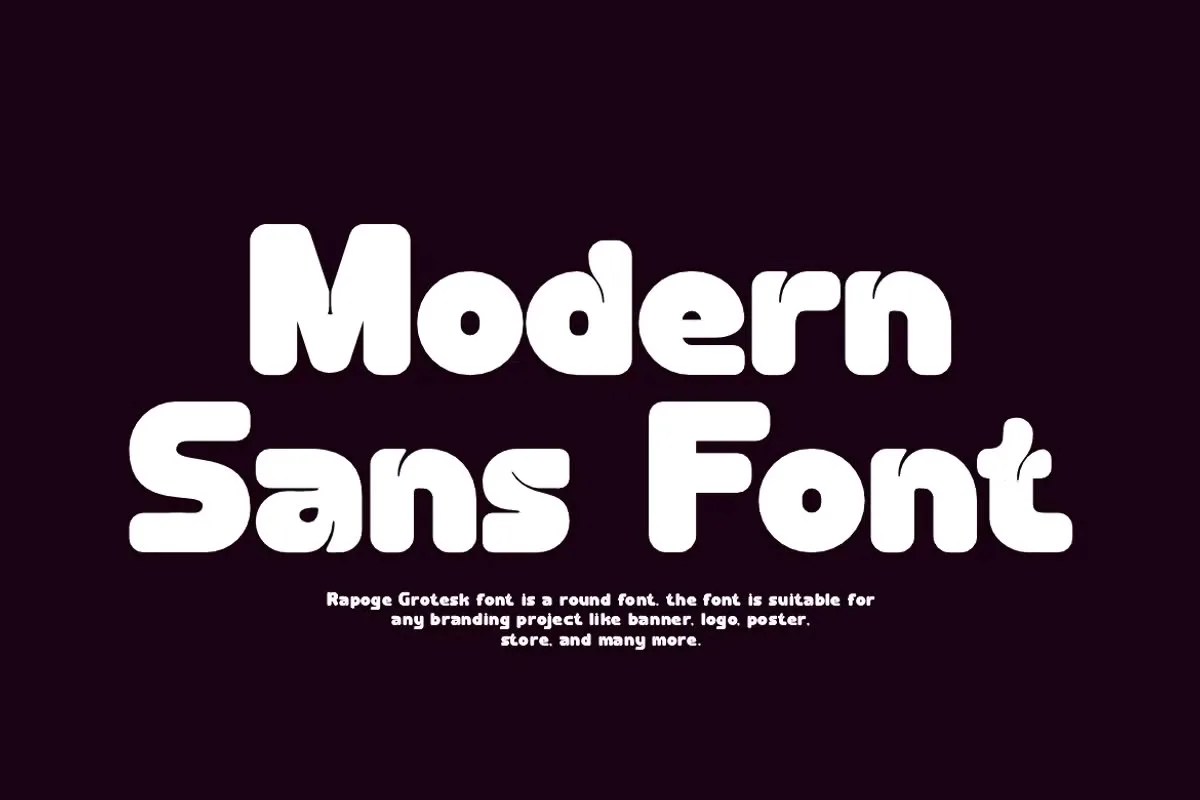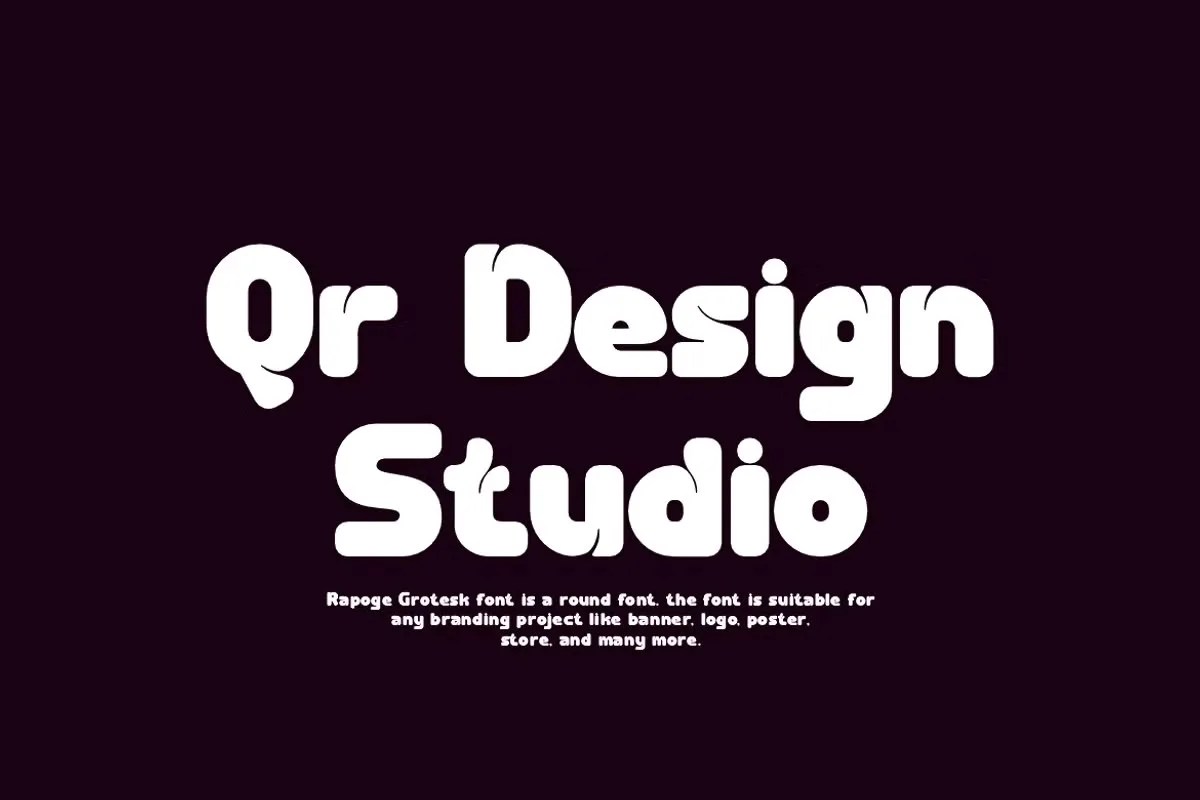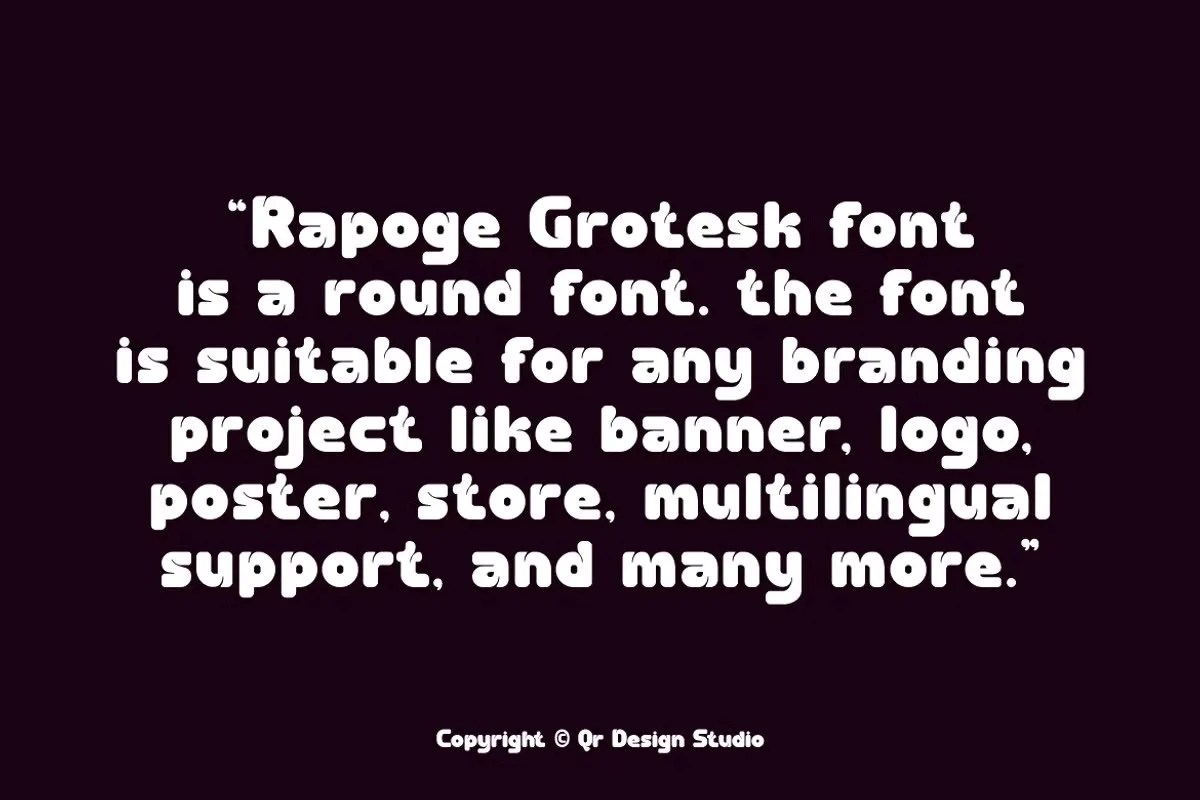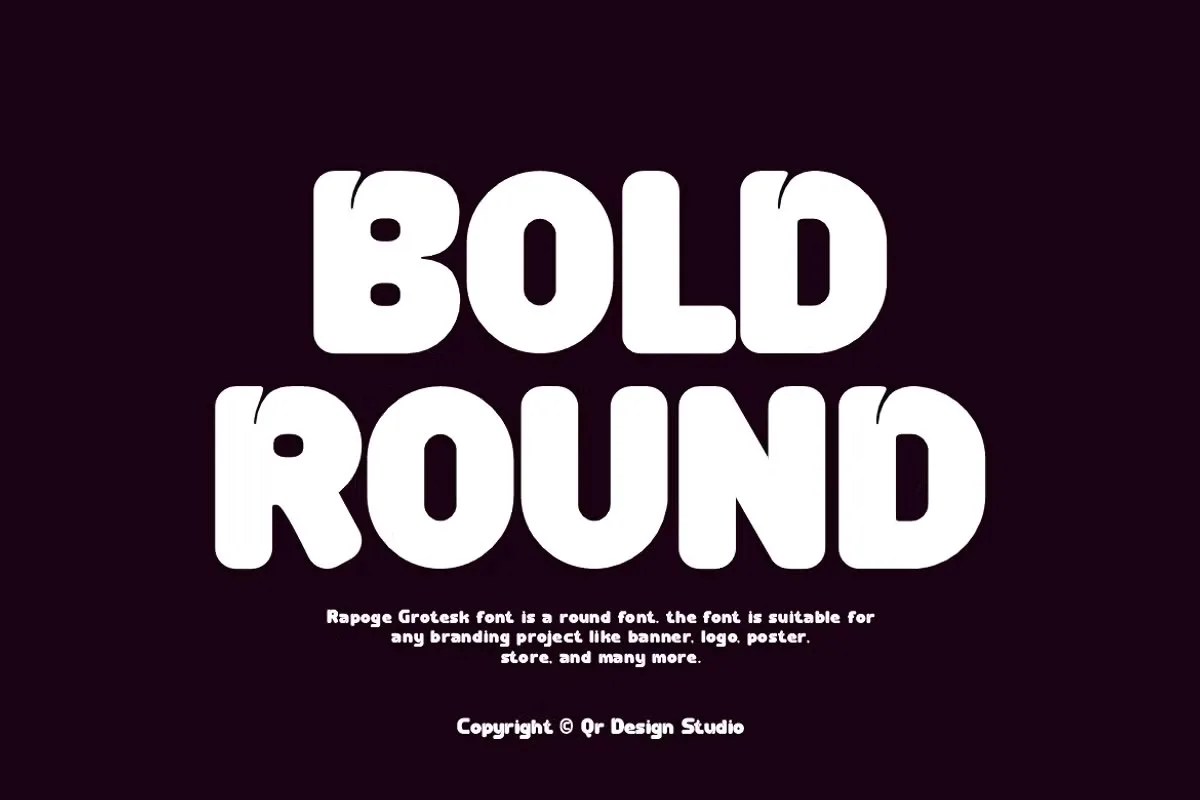
Rapoge Grotesk by QR Design Studio. This is a highly functional grotesque sans serif font that pays homage to the classic workhorse typefaces of the past. However, the font also adds its own modern and distinctive details. It perfectly balances raw utility with a touch of unique character. Rapoge Grotesk is an excellent choice for designers who need a reliable yet memorable font for a wide range of applications.
This font is a true multi-purpose tool for any designer’s toolkit. Specifically, its high legibility makes it perfect for UI/UX projects and website body copy. It ensures a comfortable and clear reading experience for users. Furthermore, this grotesque sans serif font has enough character for impactful branding and headlines. Use it for clean logos, informative posters, and professional print layouts where you need a strong, clear, and dependable voice. Its versatility is its greatest strength.
• Functional grotesque sans serif style
• Features classic clarity with modern quirks
• Ideal for branding, UI/UX, and editorial design
• A reliable and highly versatile workhorse